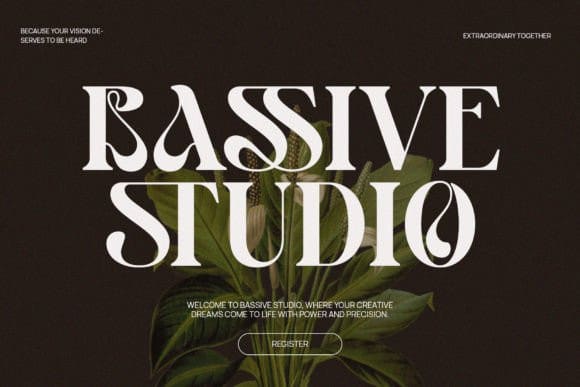
Giamlass Font
Giamlass Font is an elegant, classy and modern display serif, best used as a display for headings, logos, branding, magazines, product packaging and invitations. Giamlass is equipped with Ligature and many Alternates and come with clean lines and smooth curves to give any project an extra touch of class.